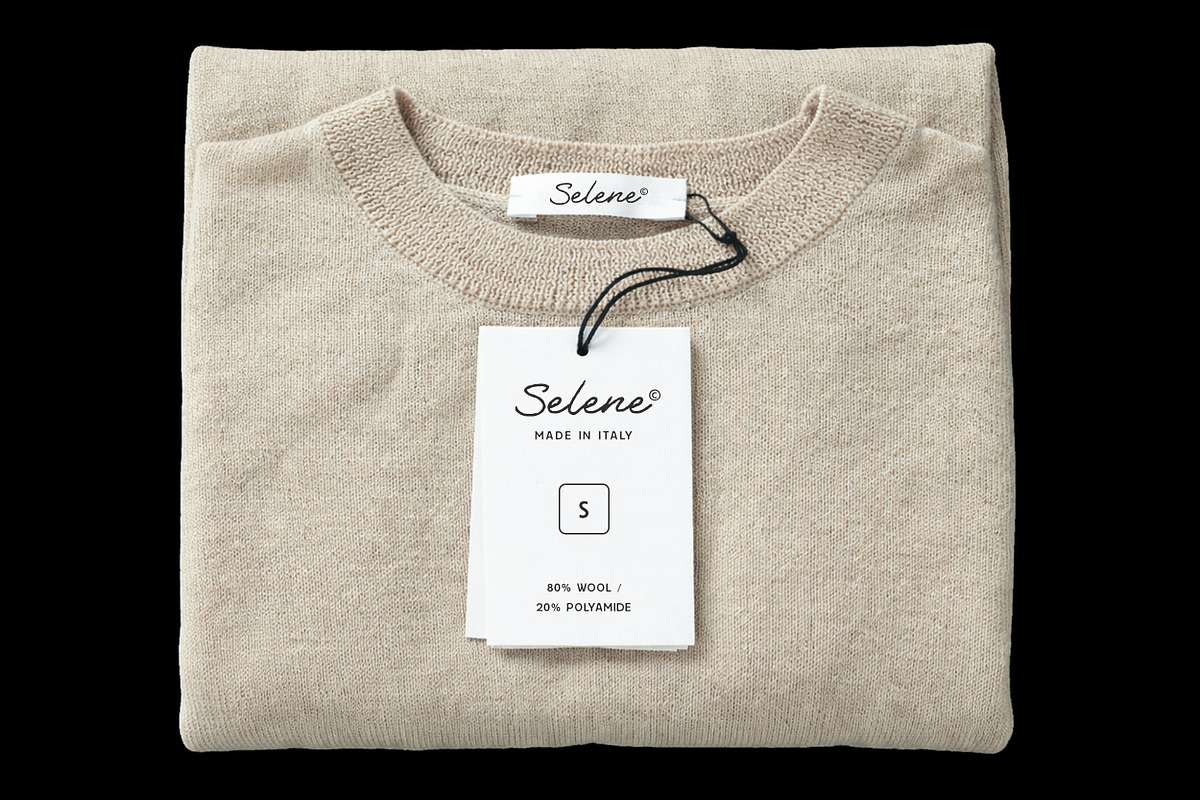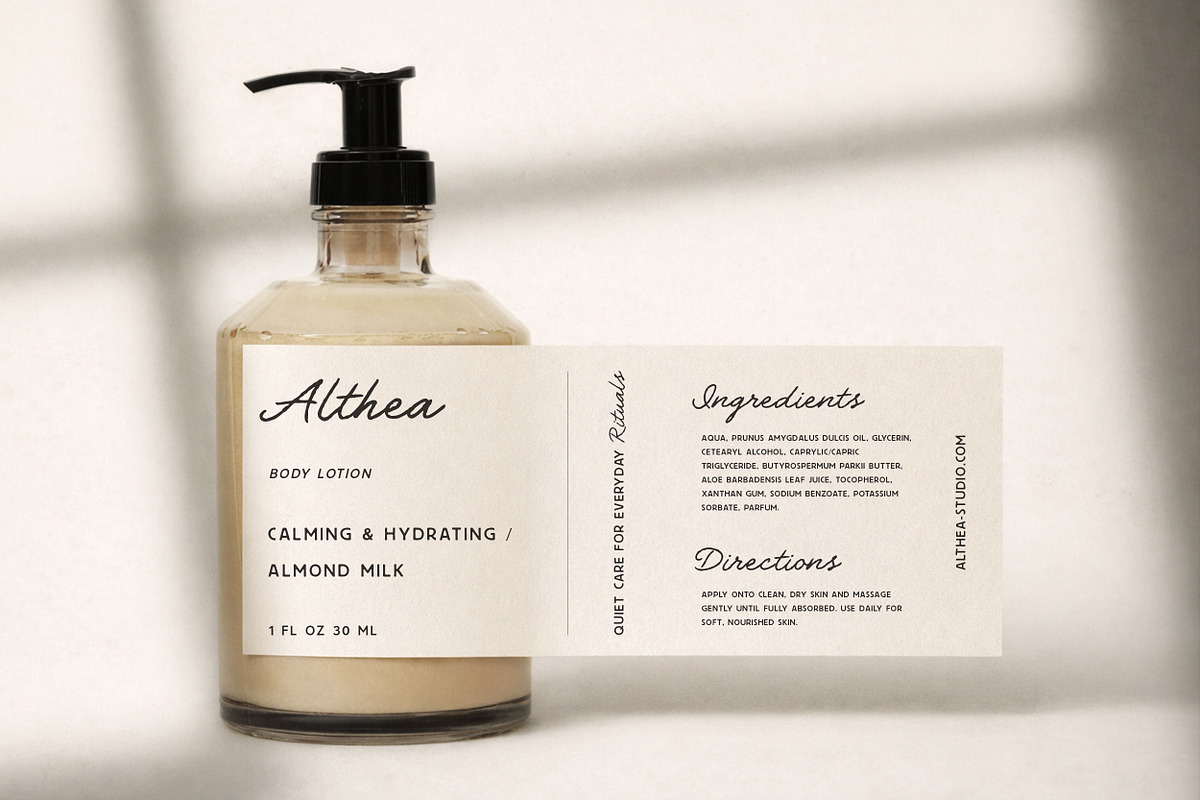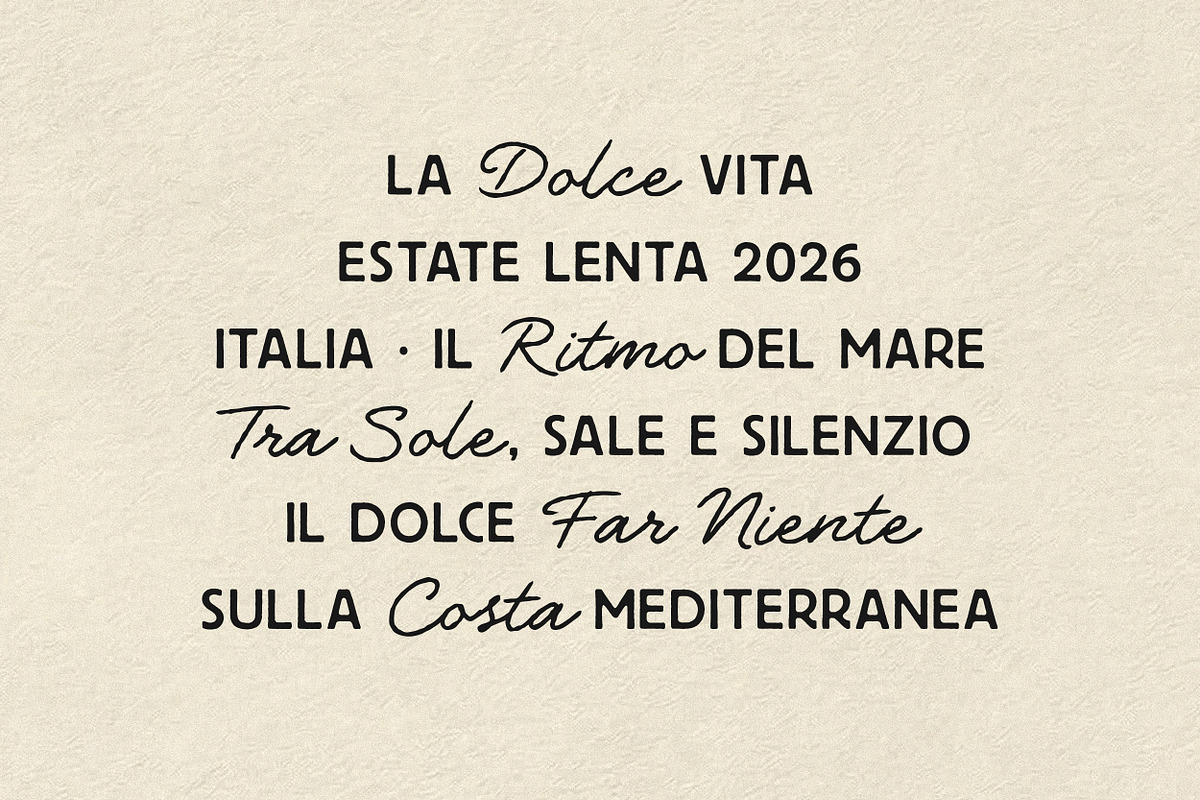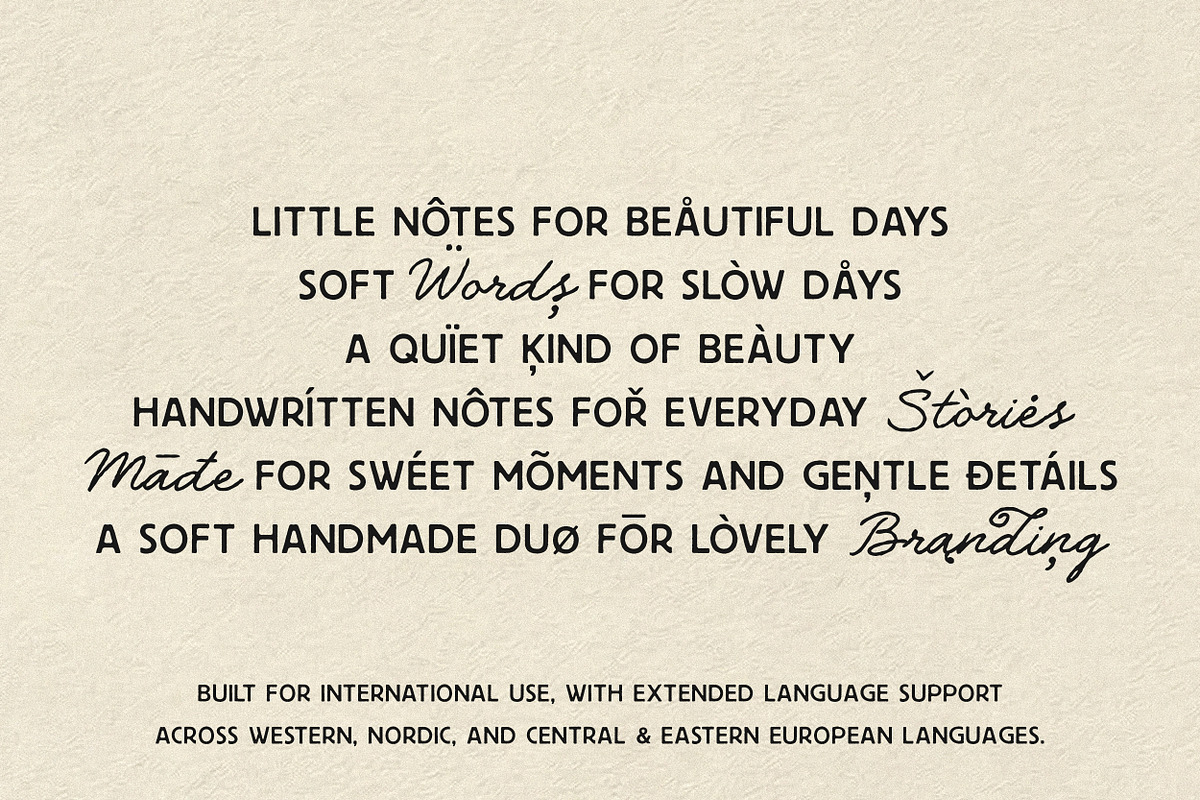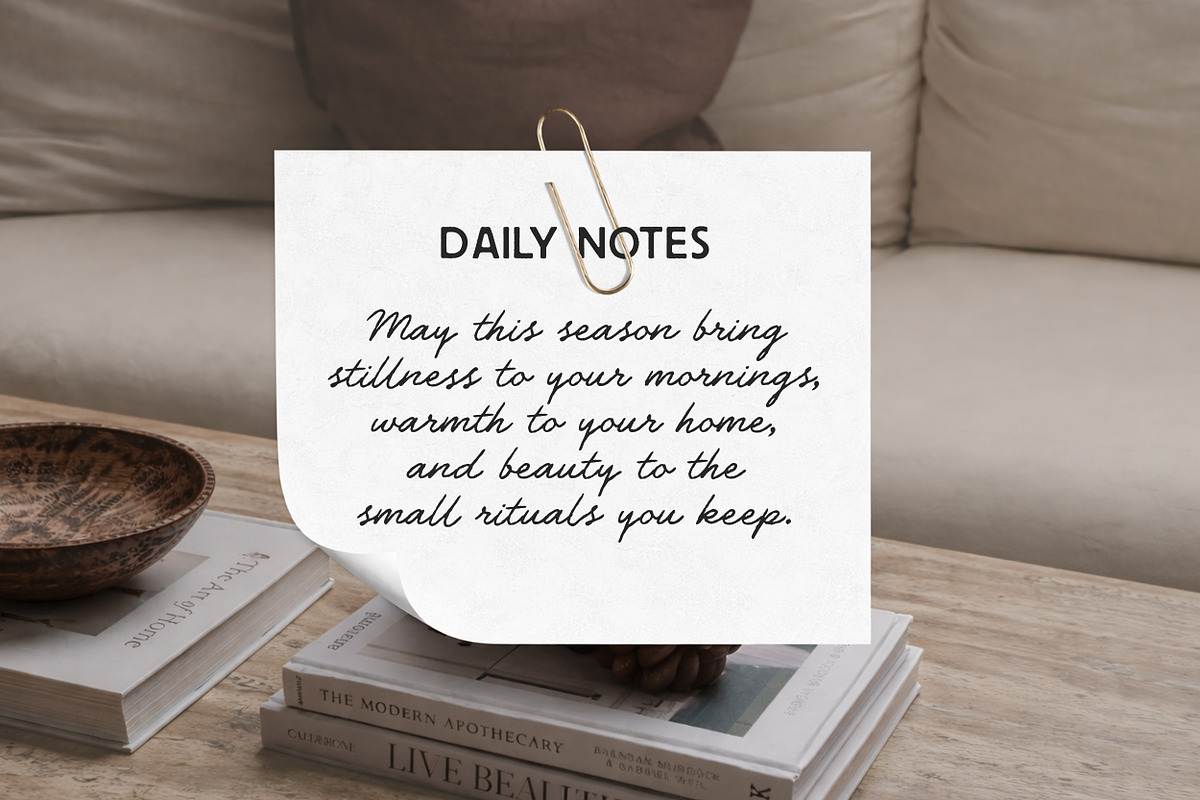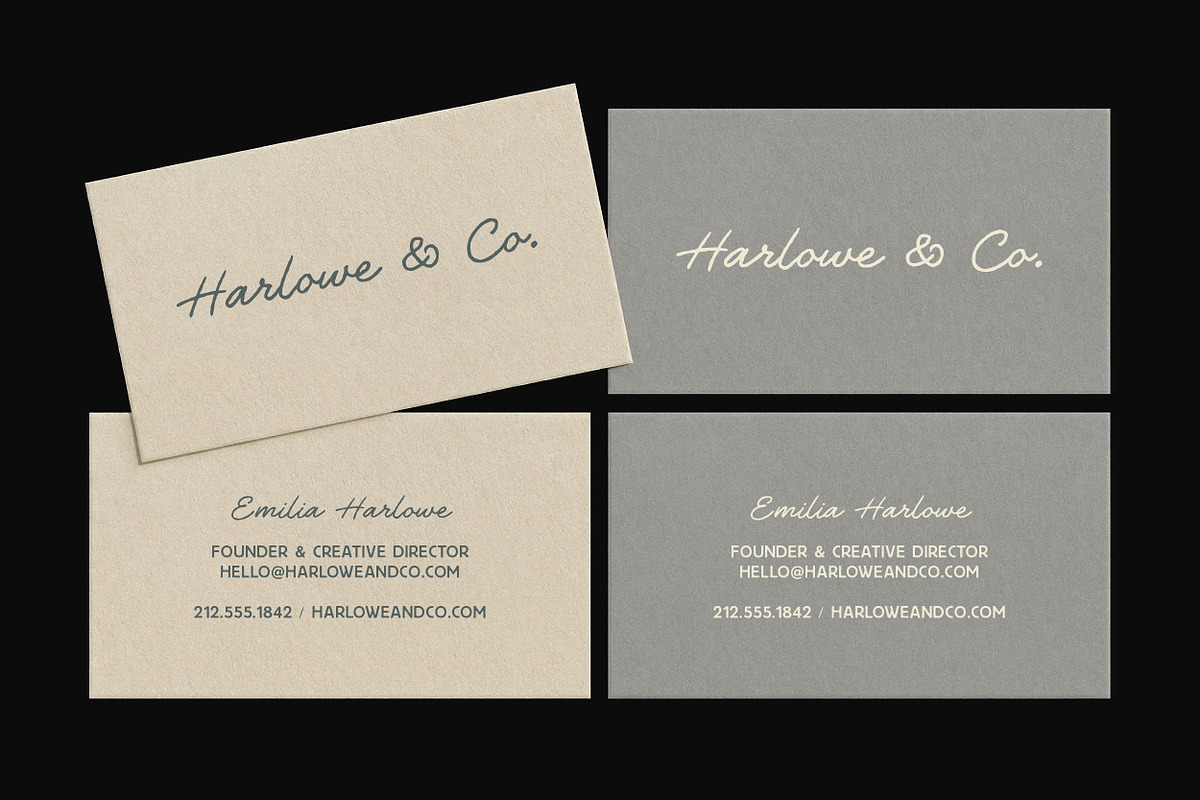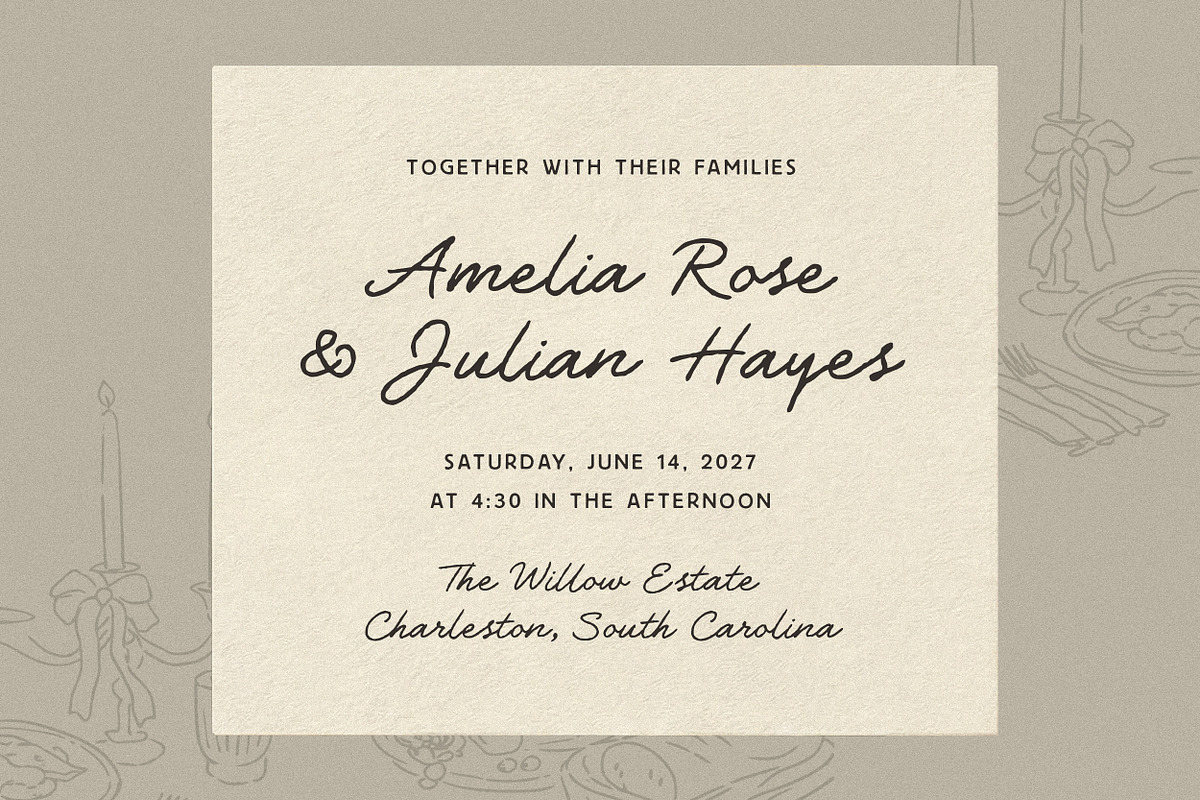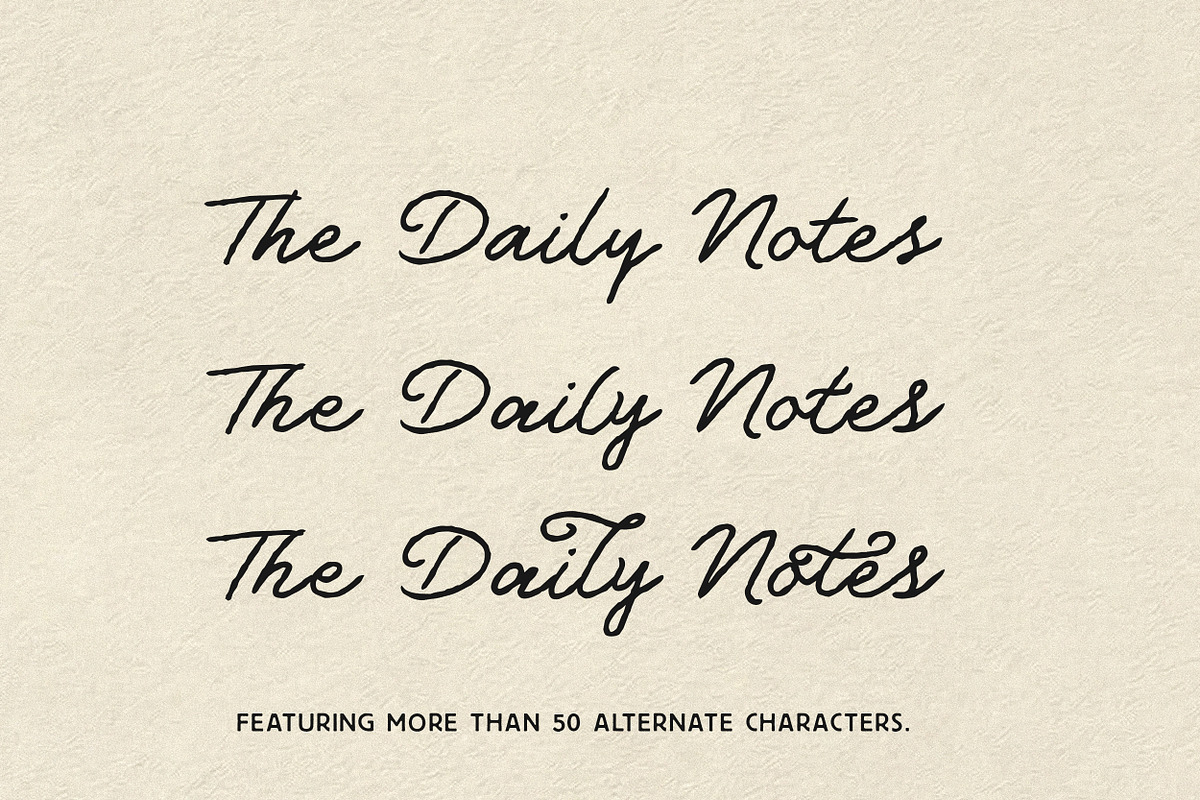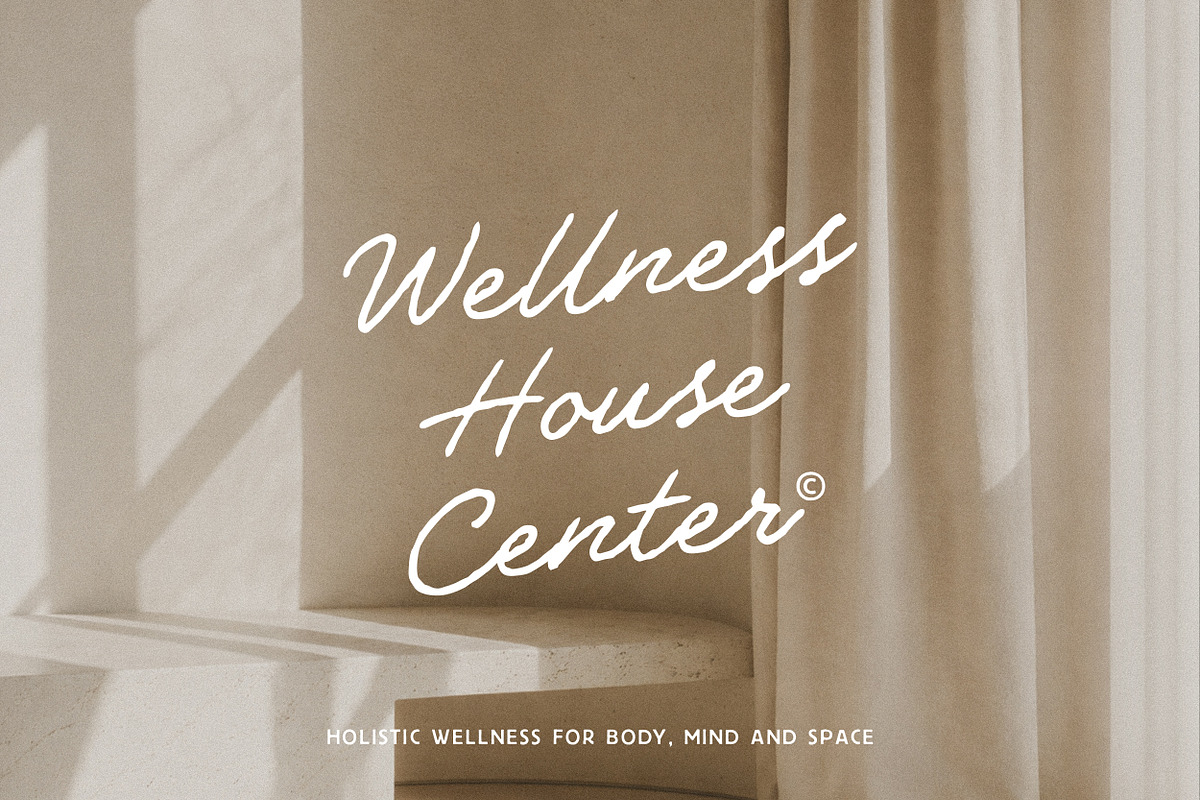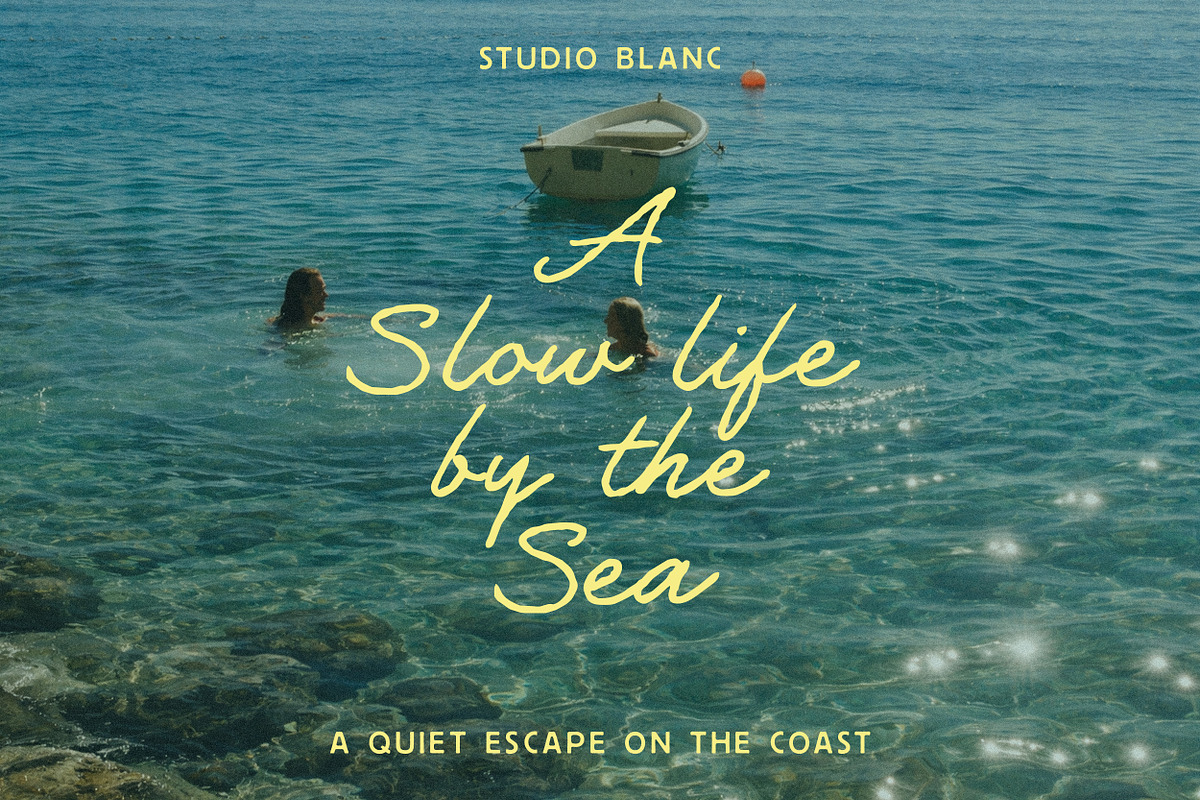
The Daily Notes - Script and Sans
The Daily Notes is a functional font pairing designed for projects that need an authentic, approachable look. It combines a relaxed, hand-drawn script with a clean, modern sans-serif, giving you a balanced toolkit for branding, packaging, and digital content.
This duo is built for designers who need a "human" touch that remains professional, legible, and easy to implement across different layouts.
The Script: The script font is designed to mimic real handwriting. To ensure your typography feels custom and hand-lettered, it includes over 50 OpenType alternates and ligatures.
To give you full creative control, the script comes in 4 styles:
Regular & Slanted: For a natural, rhythmic flow.
Bold & Bold Slanted: When you need your headlines or logos to stand out with more emphasis.
The Sans: The supporting sans-serif provides the perfect contrast. It’s a geometric, airy typeface that works beautifully for secondary text, taglines, or body copy. It includes 2 weights:
Regular & Bold: Allowing for clear hierarchy and easy readability.
Ideal for: beauty brands, wellness studios, fashion labels, cafés, boutiques, wedding creatives, content creators, packaging, editorials, and modern handmade branding.
The character set is built for international use, with full coverage for English, Italian, French, Spanish, Portuguese, German, and Dutch, plus Nordic languages (Danish, Norwegian, Swedish, Finnish). It also includes extensive Central & Eastern European support such as Polish, Czech, Slovak, Hungarian, Romanian, Croatian, Slovenian, Bosnian/Serbian (Latin), Latvian, Lithuanian, Estonian, Albanian, and Turkish—so your typography stays consistent across markets.